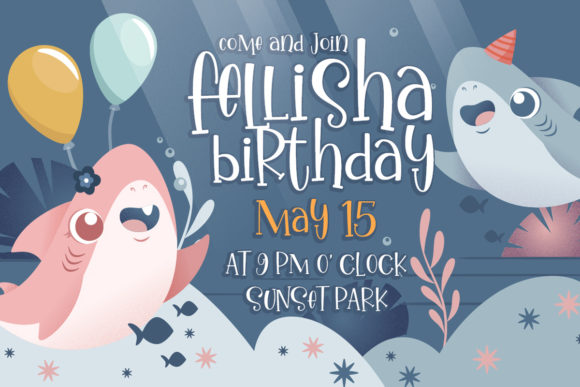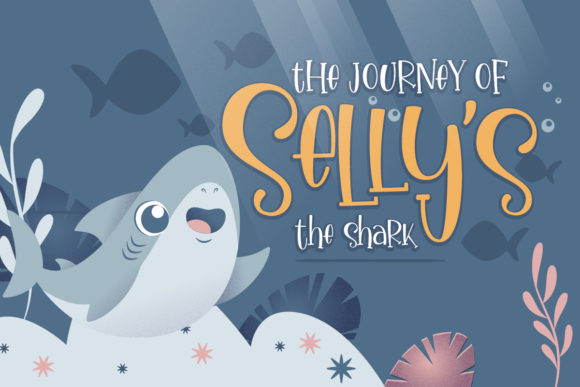
About Ikan Salmon Font
Ikan Salmon is a fun and friendly handwritten font. Simple and easy to use, this font will be very beautiful if you mix it with your various craft designs.